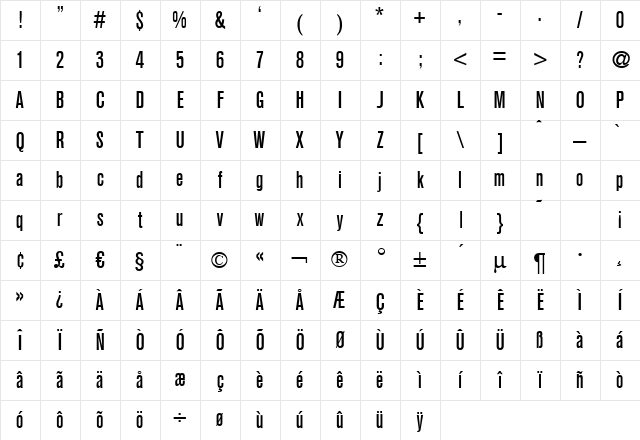
Complete A750-Sans-Cd-Medium Regular glyph index. Displaying only characters natively supported by A750-Sans-Cd-Medium Regular font.
A750-Sans-Cd-Medium is a composed and adaptable typeface that performs quietly and consistently across a wide range of design contexts.
Pro Tip: Use A750-Sans-Cd-Medium in both headline and body roles to test its range before committing to a single application.